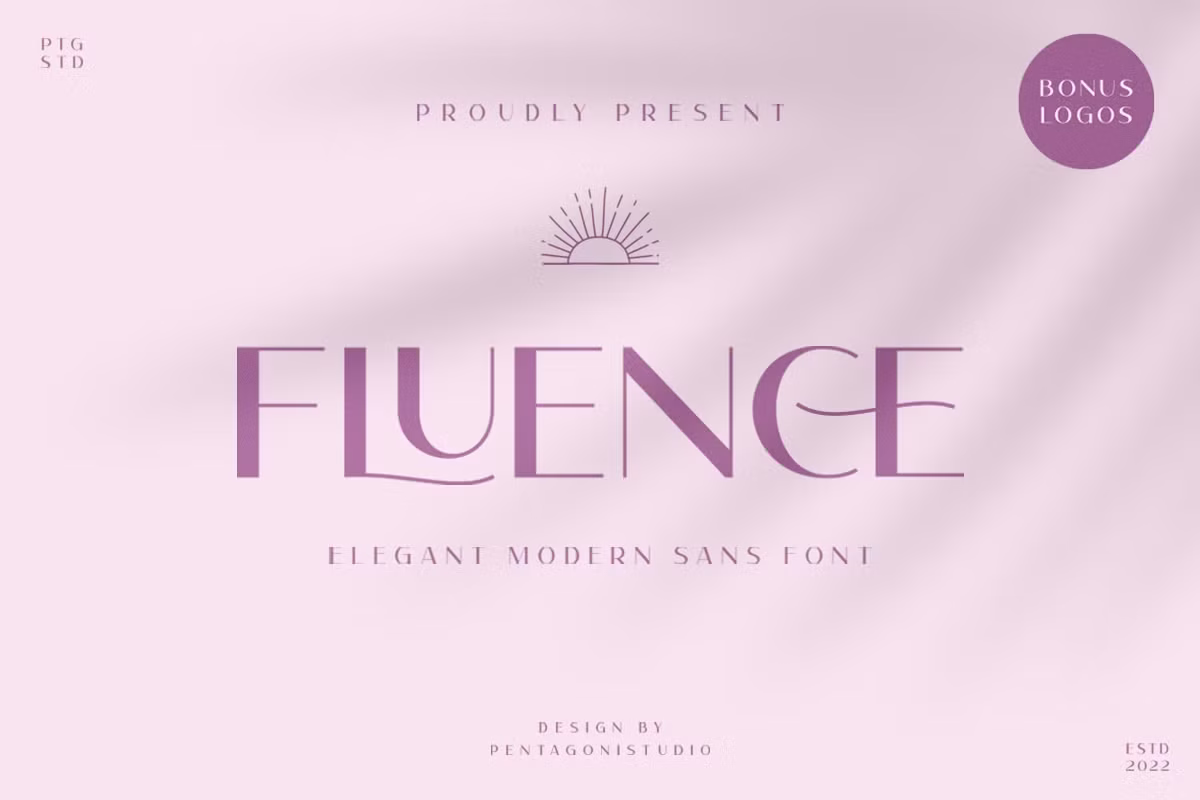
Fluence | Elegant Modern Sans Font Free Download
Introducing Fluence, an elegant sans serif font inspired by feminine and graceful characteristics. Designed by Pentagonistudio, Fluence is perfect for web design, branding, logos, invitations, magazines, and more. The font features both OTF (OpenType) and TTF (TrueType) formats, ensuring compatibility with various design software. For commercial use, please ensure you purchase the appropriate license